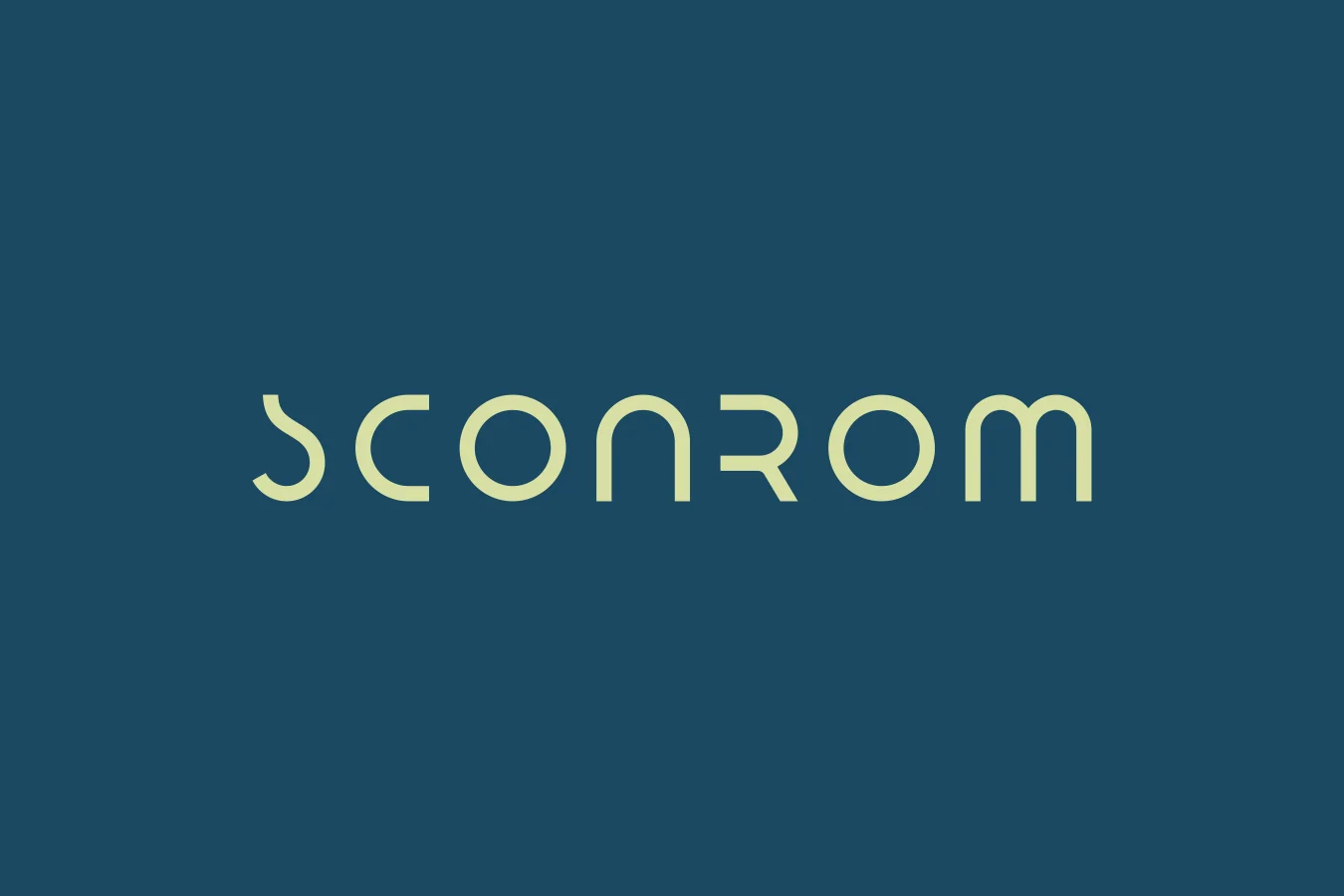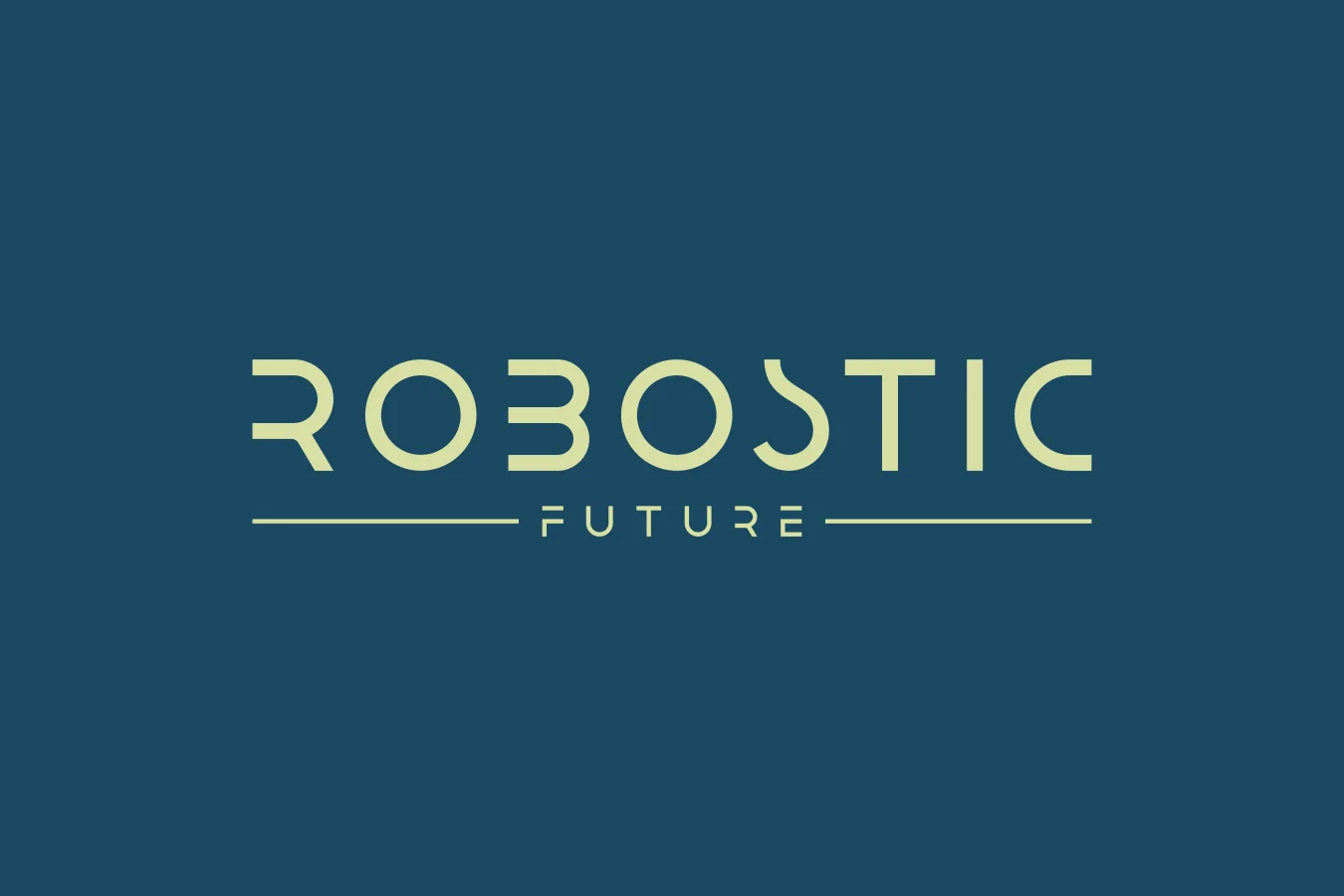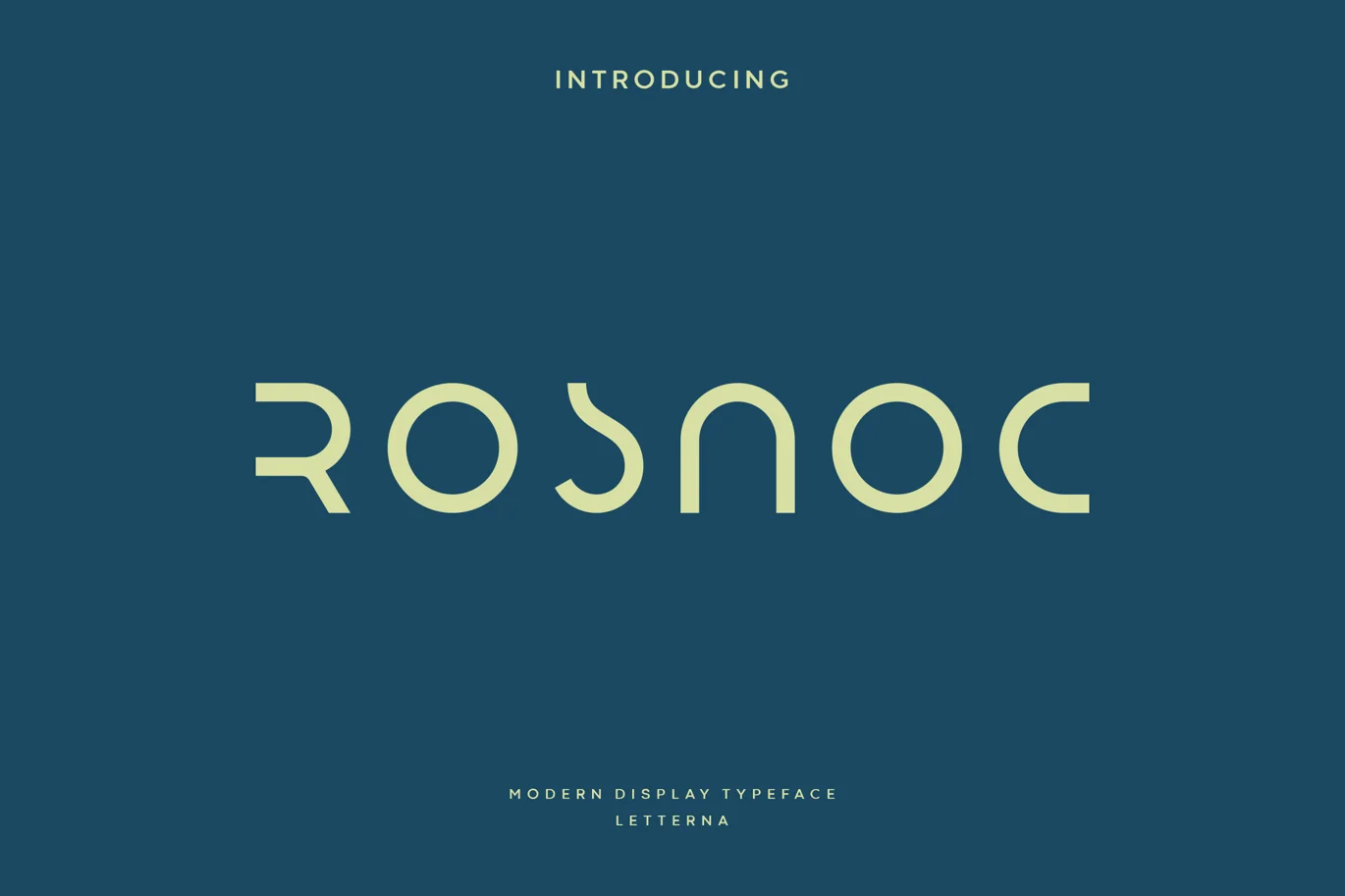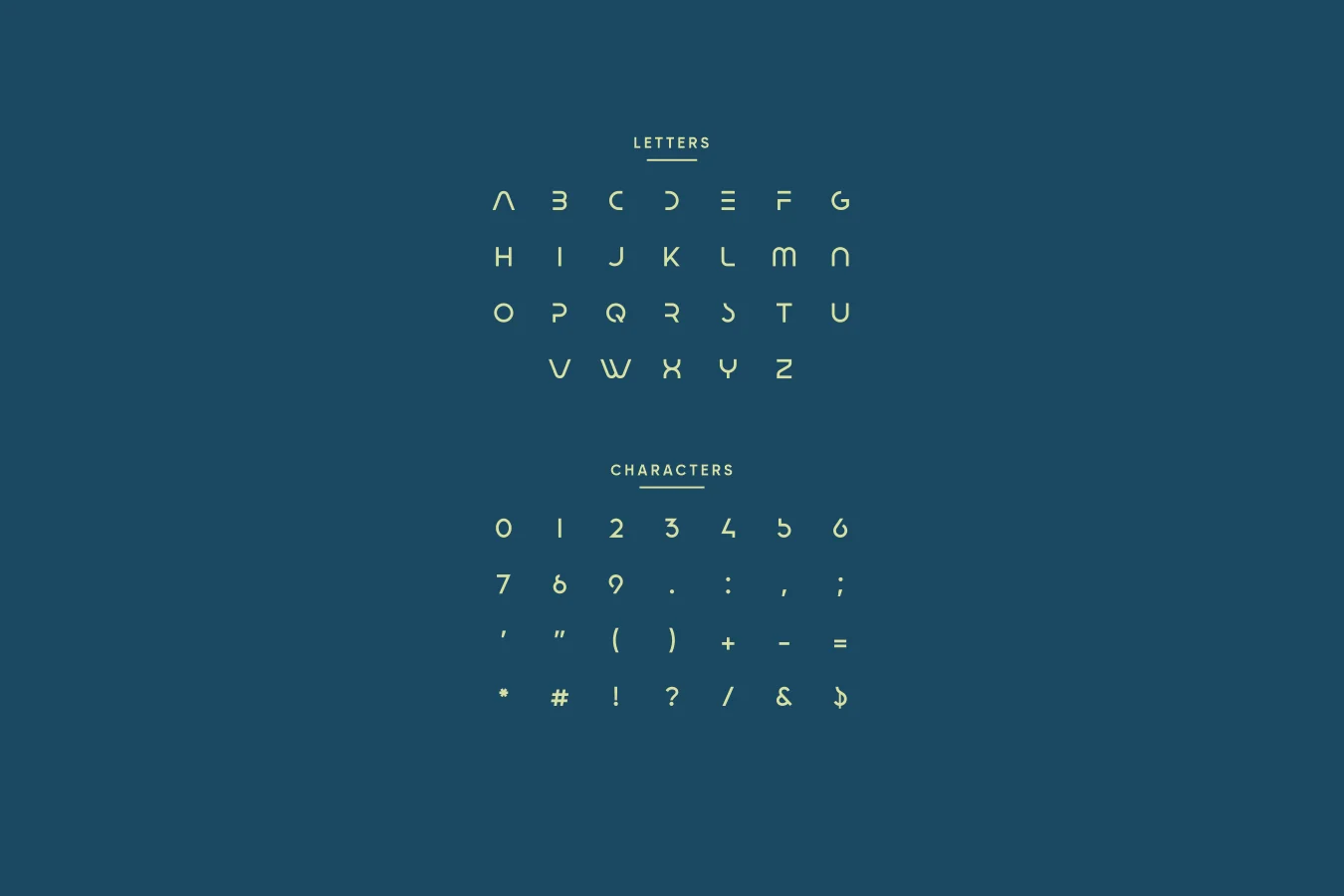
Rosnoc – Modern Futuristic Typeface
Rosnoc is a unique all-caps based font that will make your design look futuristic and modern, using a simple design to make it look clean and elegant. You can use this font for any purpose, especially for creating future designs. This font would be great for logo designs, posters, magazines, headlines and many other designs, it’s a very sophisticated font that will make your designs stand out!